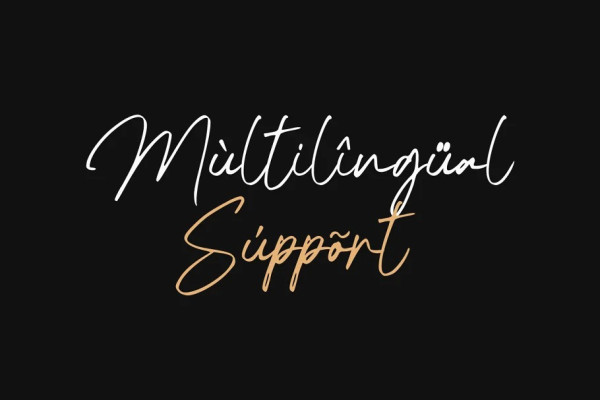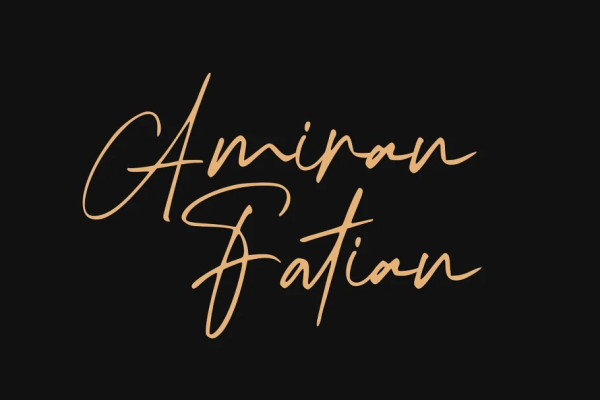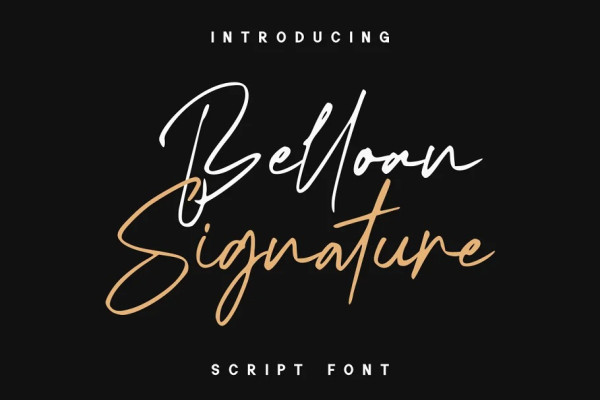
Belloan Signature Font
Belloan Signature Font, It would be a perfect choice to design posters, affiches, logos, t-shirt and magazine prints, eye-pleasing typographic designs and more.